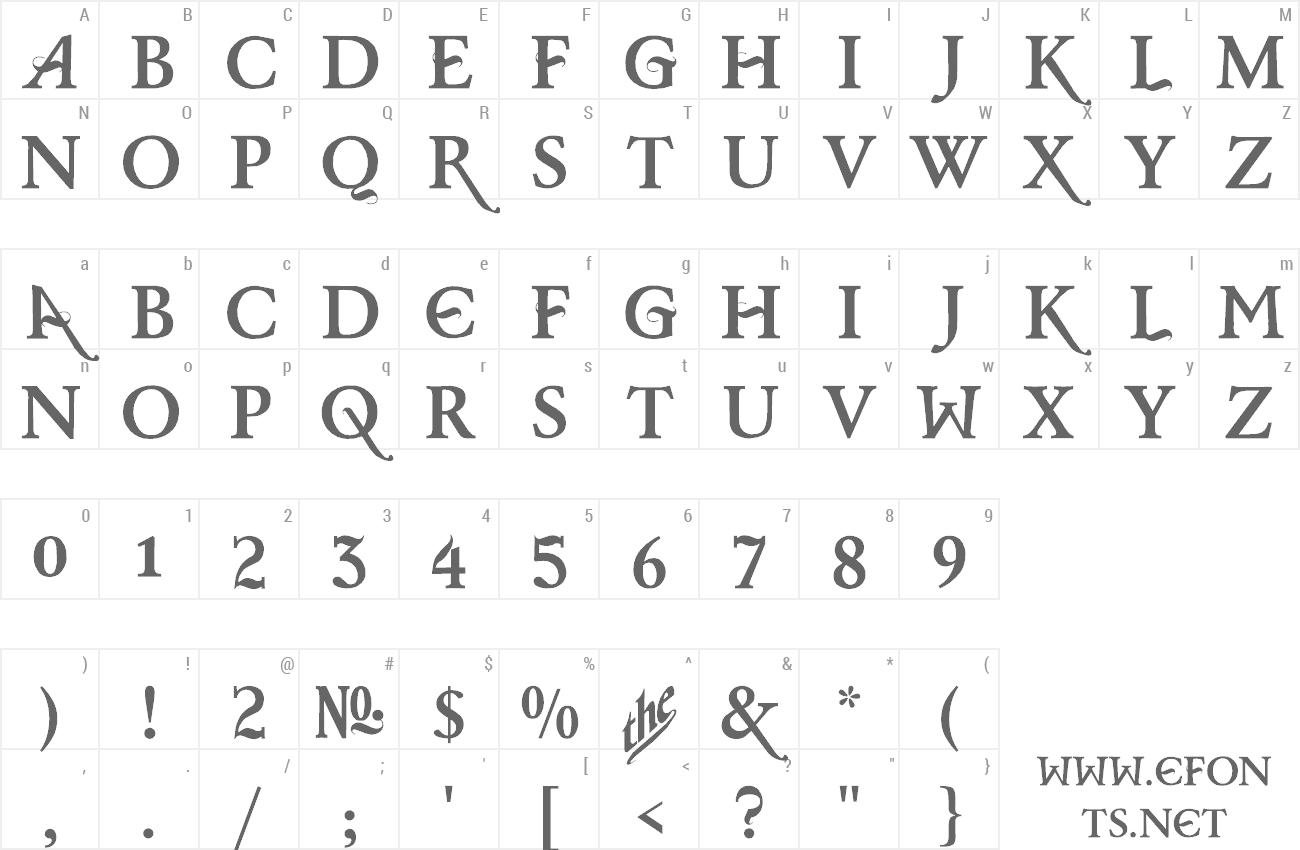
| Font name: | Baris Cerin |
| Author: | Bolt Cutter Design-Industrial Strength |
| Note by Bolt Cutter Design-Industrial Strength | |
| Named after our favorite professor! A bastardized version of Garamond. Prettyfide, with a full character set, Euro symbol, multi-language support and special characters! |